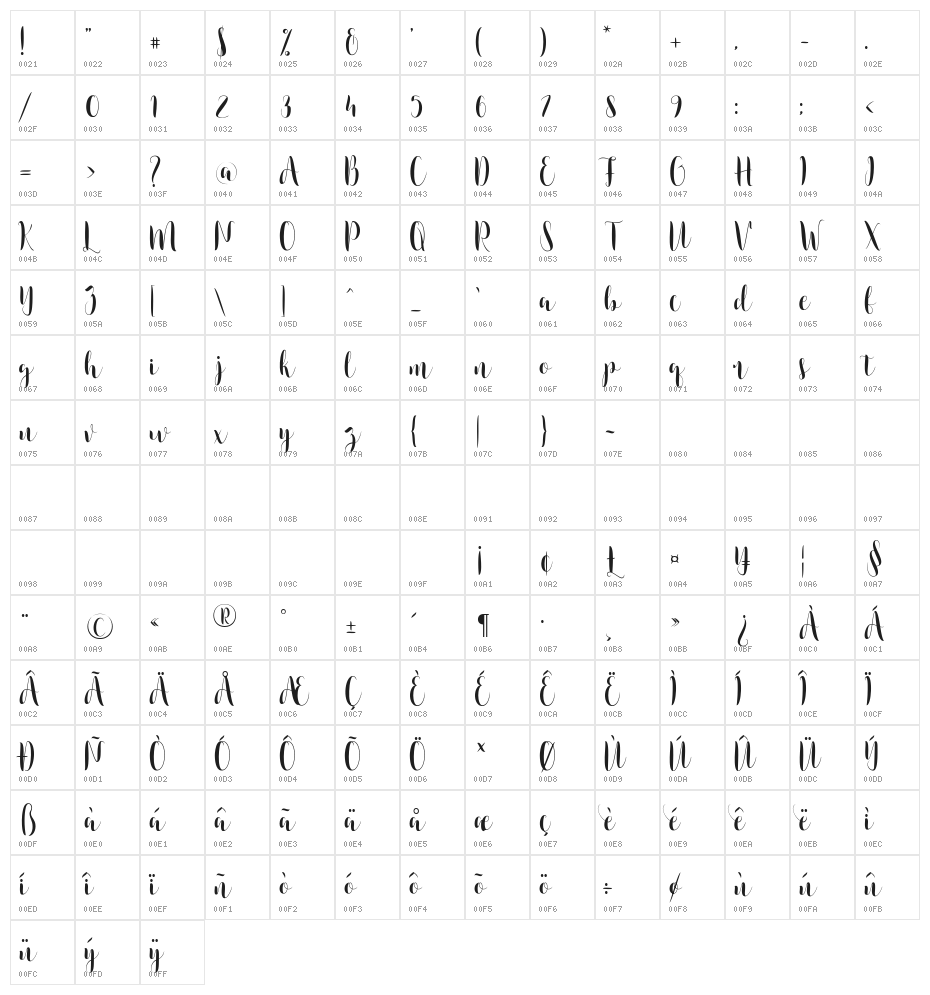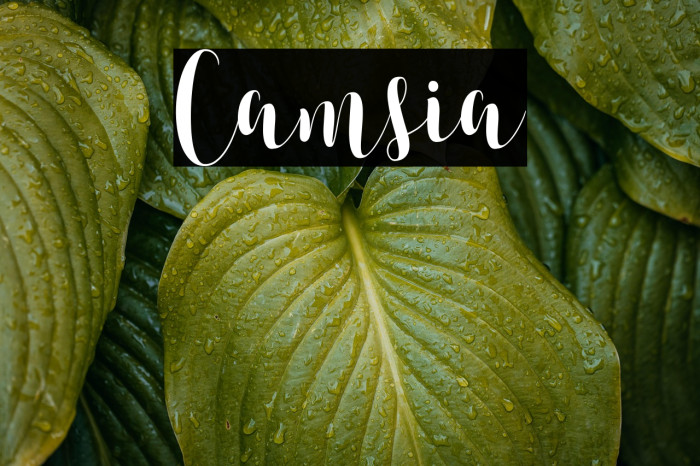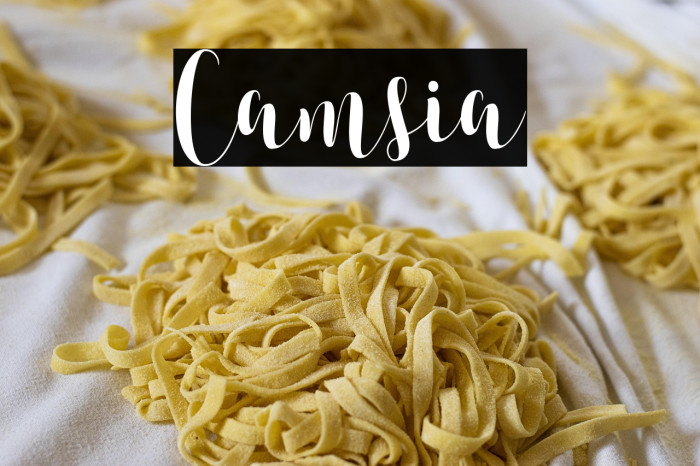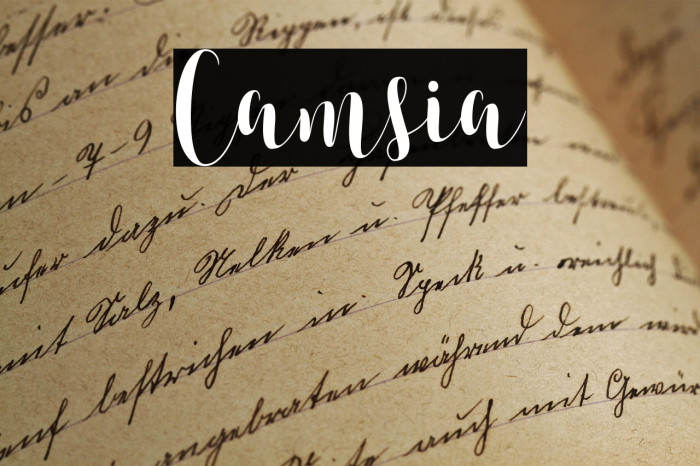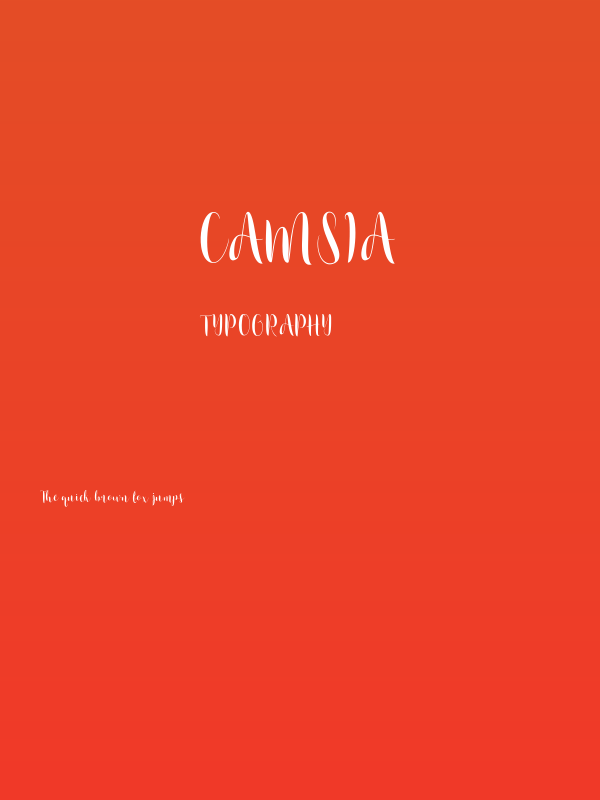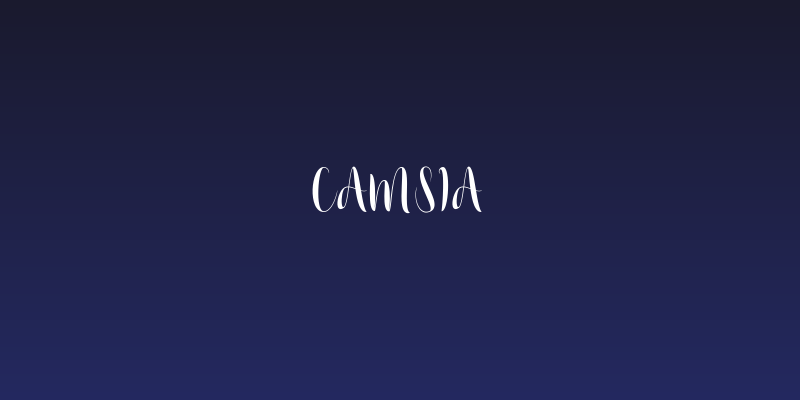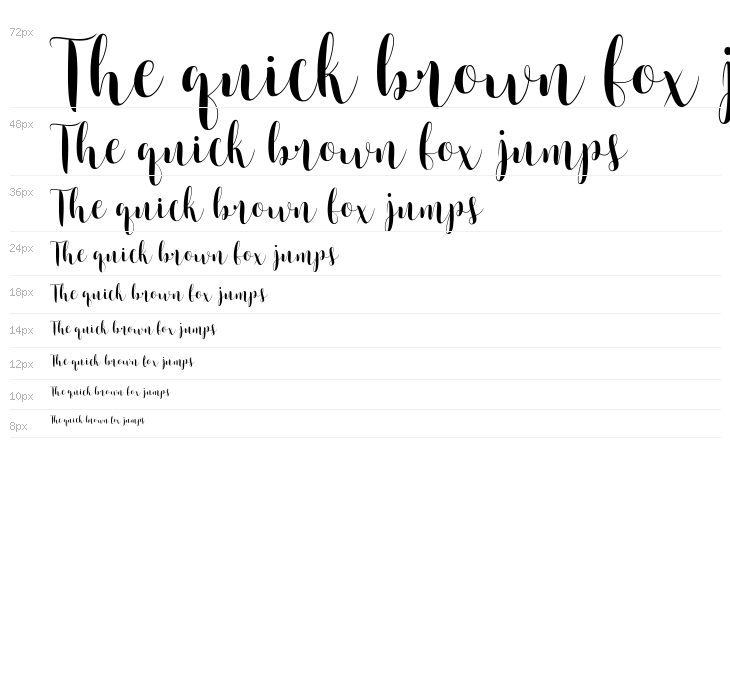
Camsia Font
Camsia Description
This font exudes elegance and sophistication with its flowing, cursive script style. The characters are crafted with a high contrast between thick and thin strokes, creating a dynamic and graceful appearance. The uppercase letters are particularly ornate, featuring sweeping curves and loops that add a touch of flair. The lowercase letters maintain a consistent style, with smooth connections and a rhythmic flow. The numbers and special characters are designed to complement the letters, maintaining the same elegant aesthetic. This font is perfect for projects that require a touch of class and refinement.
| Proposed Projects | Ideal for wedding invitations, luxury branding, elegant packaging, and sophisticated editorial design. |